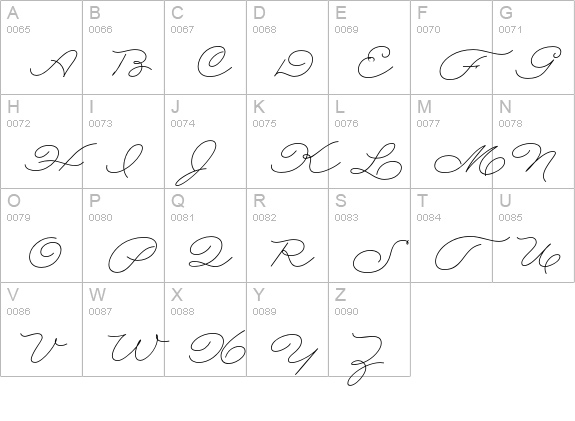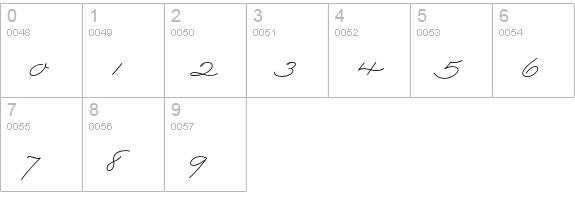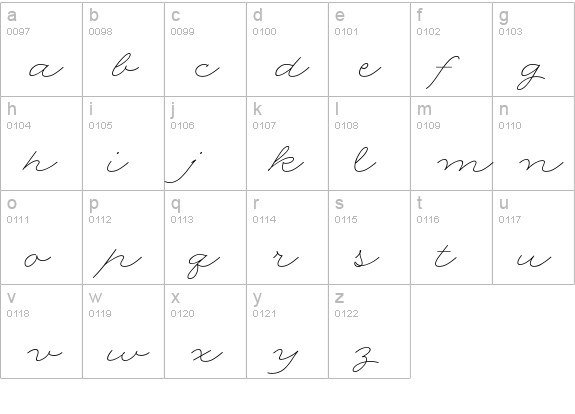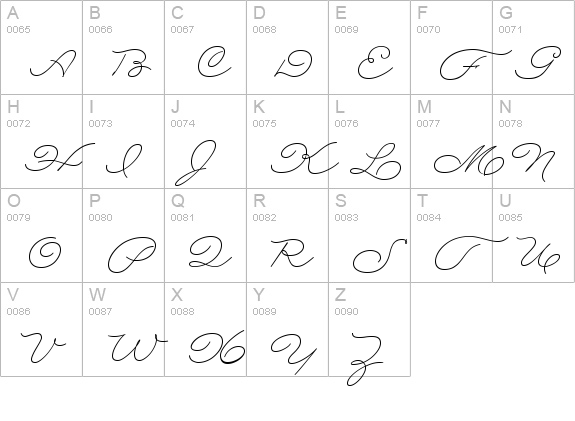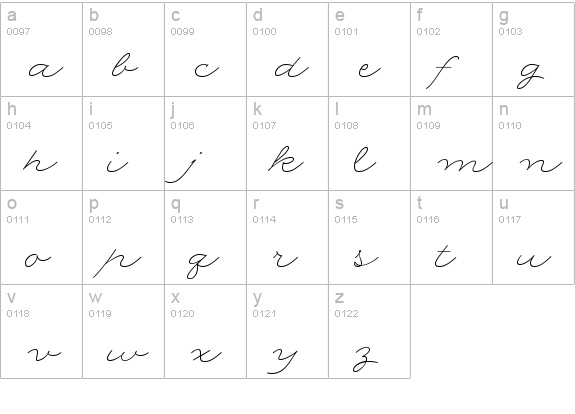
Rolling Pen Basic One font is a versatile and modern typeface that will add a touch of elegance to any design project. Its sleek lines and smooth curves make it perfect for a wide range of applications, from branding to editorial design. With its clean and readable appearance, Rolling Pen Basic One font is sure to make your text stand out. Best of all, this font is available for free download at FontsMarket.com. Whether you're a designer looking to add a new font to your collection or a student working on a project, Rolling Pen Basic One font is a great choice. Download it today and see how it can elevate your designs to the next level!